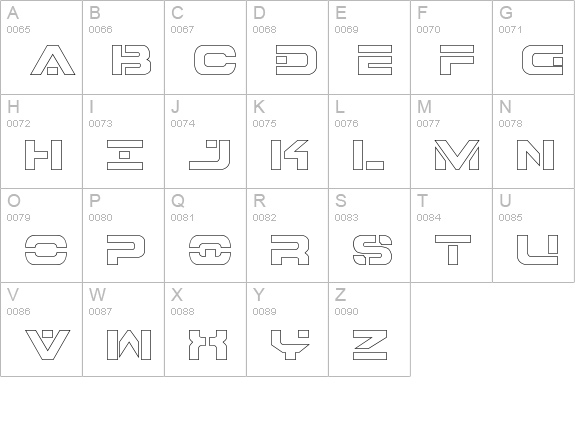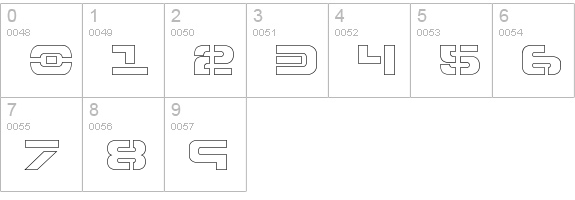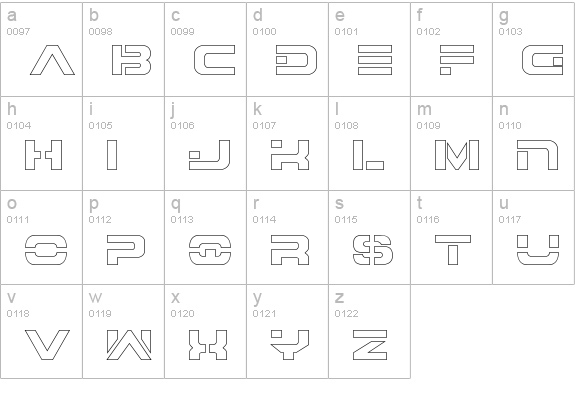
The 7th Service Outline font is a sleek and modern typeface that exudes sophistication and elegance. With its clean lines and sharp edges, this font is perfect for adding a touch of refinement to any design project. The 7th Service Outline font is versatile and can be used for a variety of purposes, from branding to editorial design. Best of all, this font is available for free download at FontsMarket.com. Whether you're a professional designer or a hobbyist looking to add a touch of style to your projects, the 7th Service Outline font is a great choice. Don't miss out on this opportunity to enhance your designs with this stunning and stylish typeface.